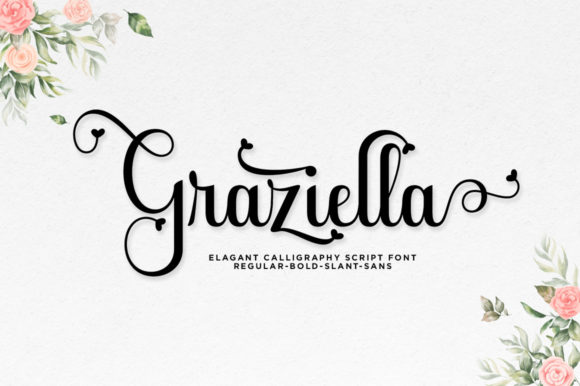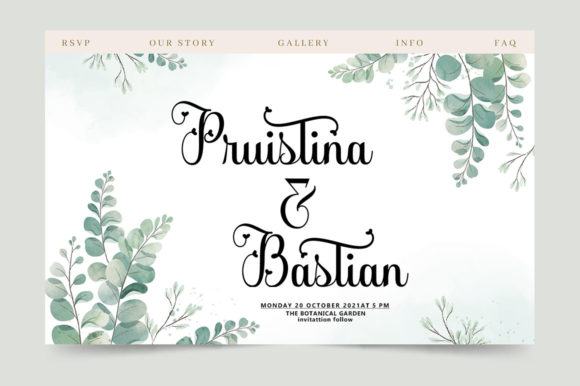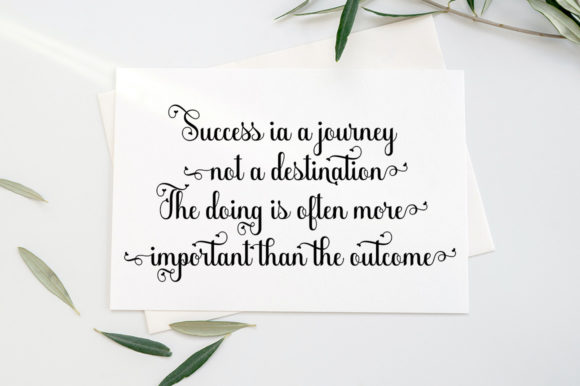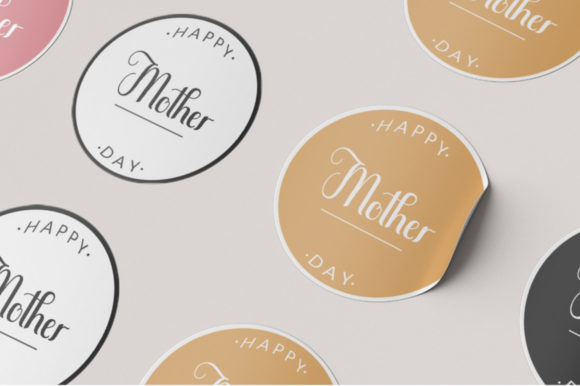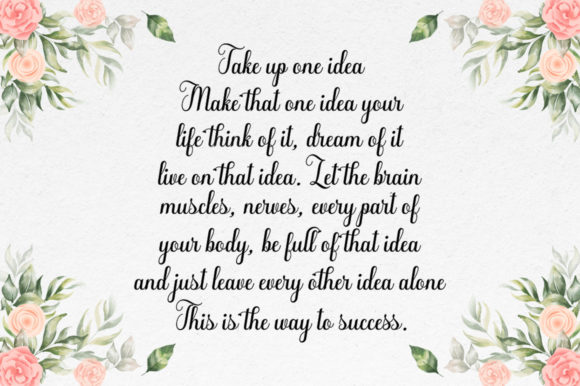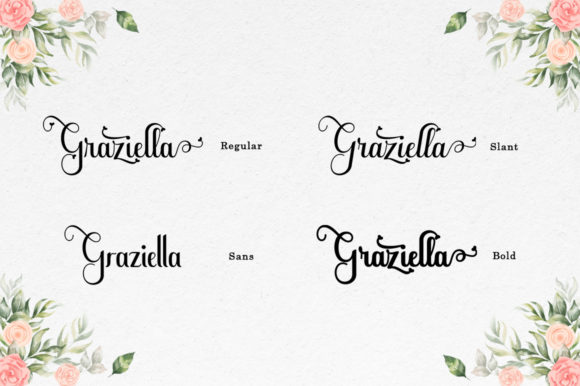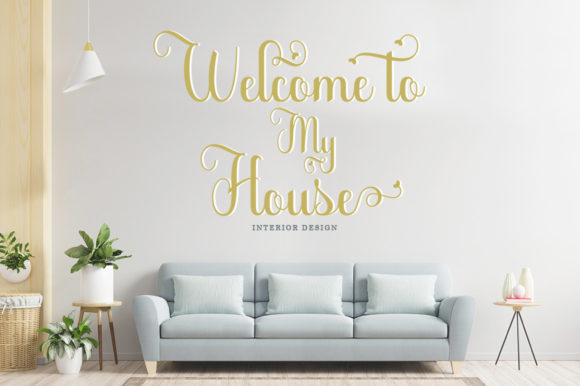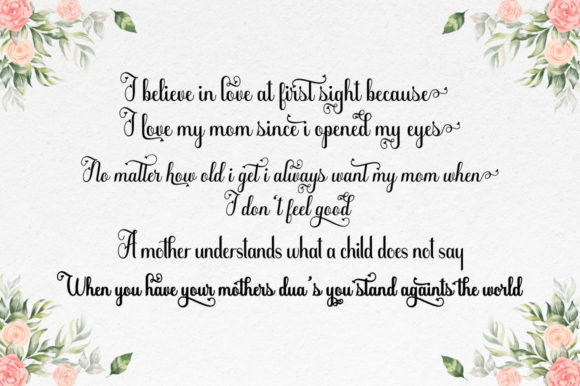
Graziella Script Font
About Graziella Script Font
Graziella Script is a ravishing script font that exudes elegance and sophistication. Its meticulously crafted and highly detailed letterforms make it a stunning addition to any font library. Whether you’re working on a wedding invitation, a branding project, or any other creative endeavor, Graziella Script has the potential to enhance your design and give it a touch of timeless beauty.
The carefully designed strokes and curves of Graziella Script create a graceful and flowing appearance, lending an air of refinement to your text. Each letter is meticulously crafted with attention to detail, resulting in a font that is both aesthetically pleasing and legible. The combination of thick and thin lines adds visual interest and enhances the script’s overall elegance.
One of the notable features of Graziella Script is its PUA encoding, which allows you to access all the glyphs and swashes with ease. This means you can effortlessly add decorative flourishes, ligatures, and alternate characters to your designs, further enhancing their visual appeal and giving them a customized touch. The flexibility offered by the PUA encoding enables you to create unique and personalized compositions that truly stand out.
The versatility of Graziella Script makes it suitable for a wide range of design projects. It works beautifully in wedding stationery, including invitations, save-the-dates, and place cards, adding a touch of romance and sophistication. It also complements branding materials, such as logos, business cards, and packaging, creating an elegant and memorable visual identity. Additionally, Graziella Script can be used for quotes, signage, social media graphics, and more, allowing you to infuse your designs with its exquisite style.
In summary, Graziella Script is a ravishing script font that brings elegance and sophistication to any design. Its neatly crafted and highly detailed letterforms, combined with its PUA encoding for easy access to glyphs and swashes, make it a valuable asset in your font library. Whether you’re working on wedding-related designs, branding materials, or any other creative project, Graziella Script has the potential to enhance your creations and add a touch of timeless beauty.